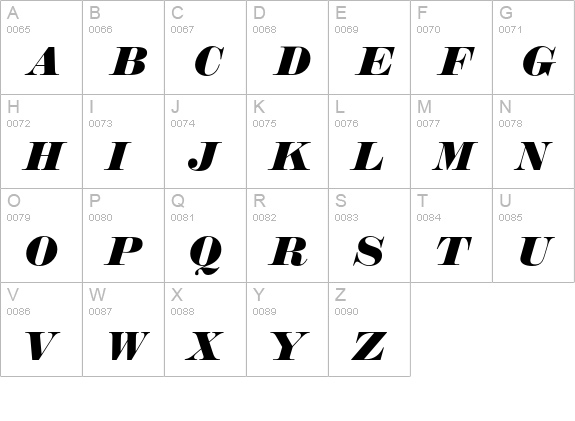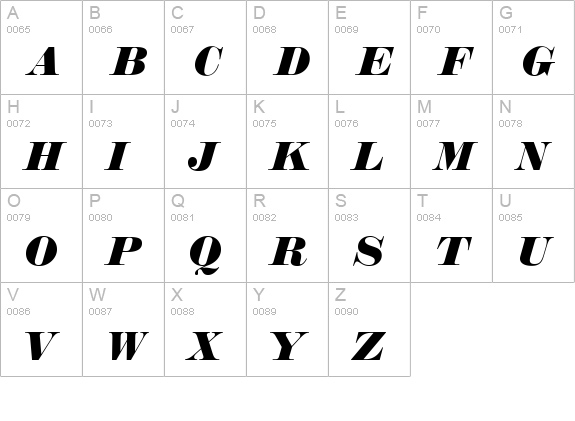
Normande Italic is a distinctive, italic variant in the Normande typeface family \xE2\x80\x94 well suited to design and typography projects.
Normande Italic font is a stylish and elegant typeface that exudes sophistication and charm. With its graceful curves and delicate strokes, this font is perfect for adding a touch of class to any design project. The italic style of Normande adds a sense of fluidity and movement, making it ideal for conveying a sense of elegance and refinement. What sets Normande Italic font apart is not only its timeless design, but also the fact that it is available for free download at FontsMarket.com. This means that you can easily access this beautiful typeface and use it in your projects without any cost. Whether you're working on a branding project, a wedding invitation, or a logo design, Normande Italic font is sure to elevate your work and leave a lasting impression. Download it today and add a touch of sophistication to your designs!